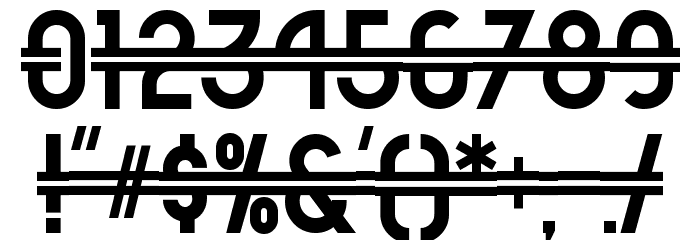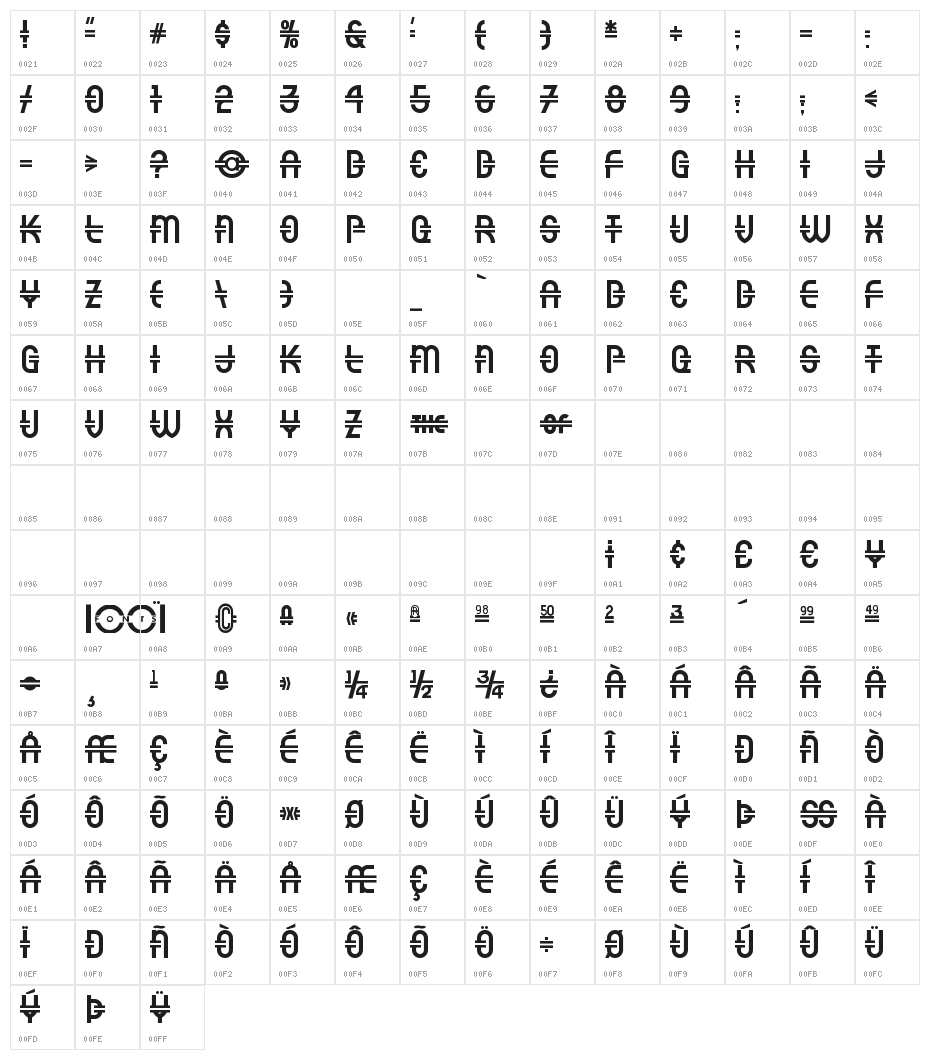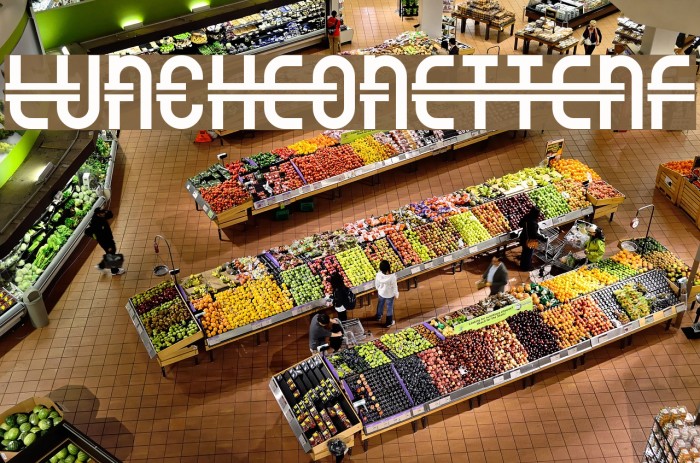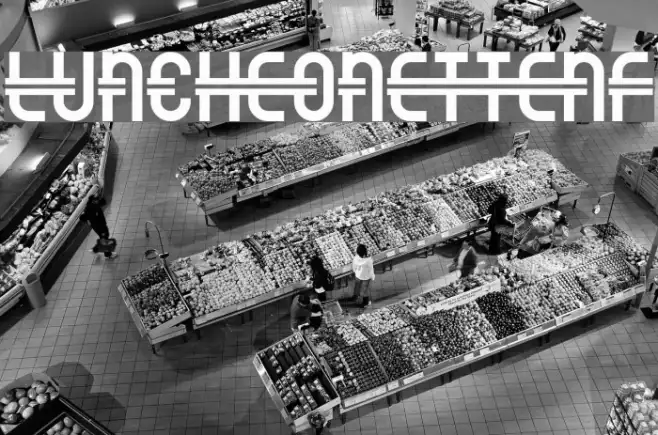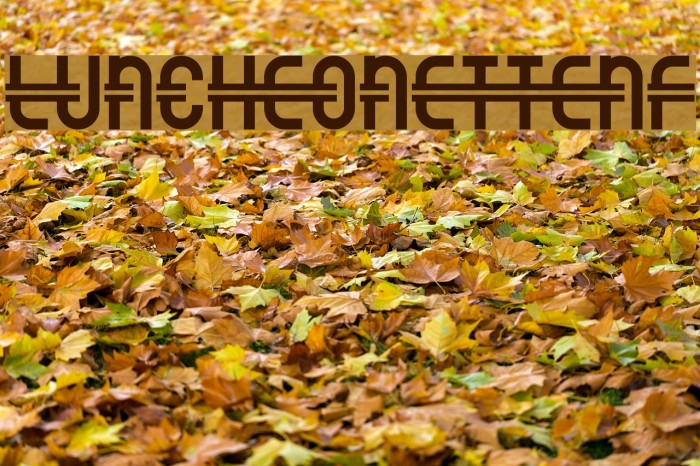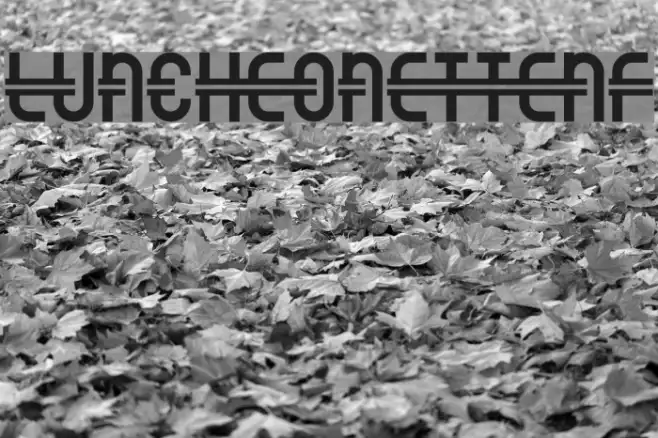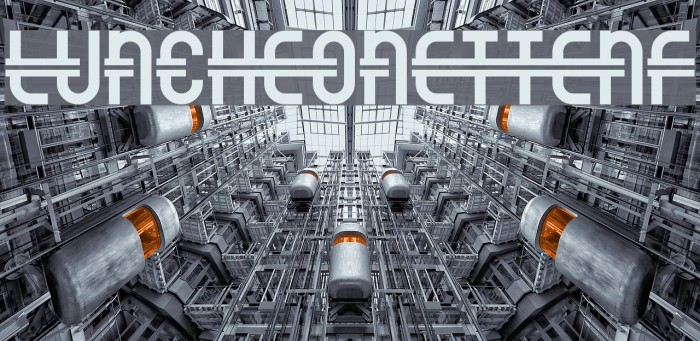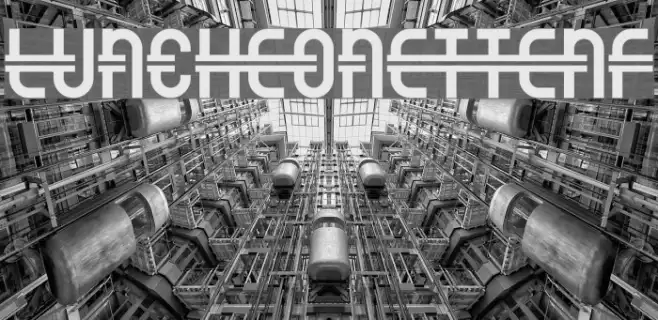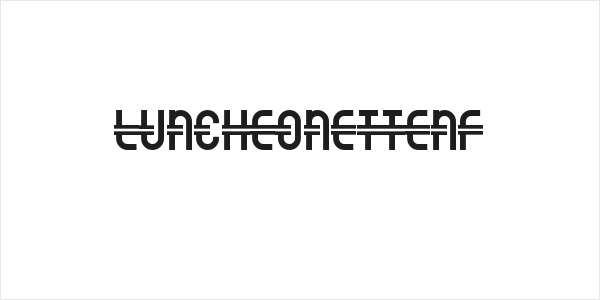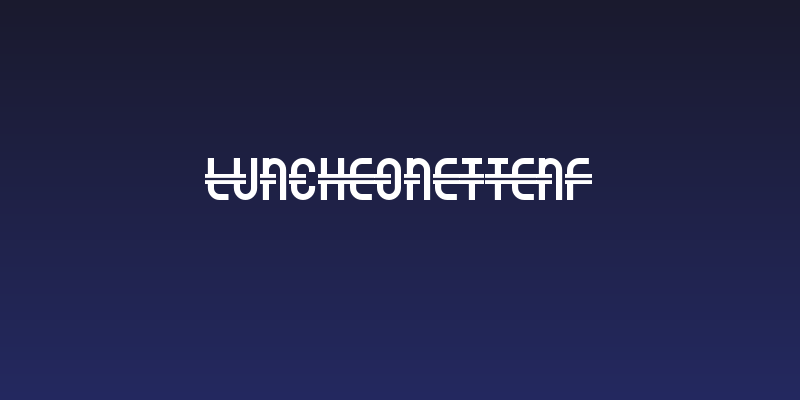
LuncheonetteNF Font
LuncheonetteNF Description
This font features a unique and striking design with a bold, geometric structure. Each character is crossed by a horizontal line, creating a distinct visual effect that sets it apart from traditional typefaces. The letters are uniformly thick, contributing to a strong and cohesive appearance. The font maintains a modern and futuristic aesthetic, making it ideal for projects that require a contemporary edge. Its boldness and distinctive style make it suitable for attention-grabbing headlines or logos. The consistent width and spacing ensure readability despite its unconventional design.
| Proposed Projects | Ideal for modern branding, futuristic posters, and eye-catching headlines. |